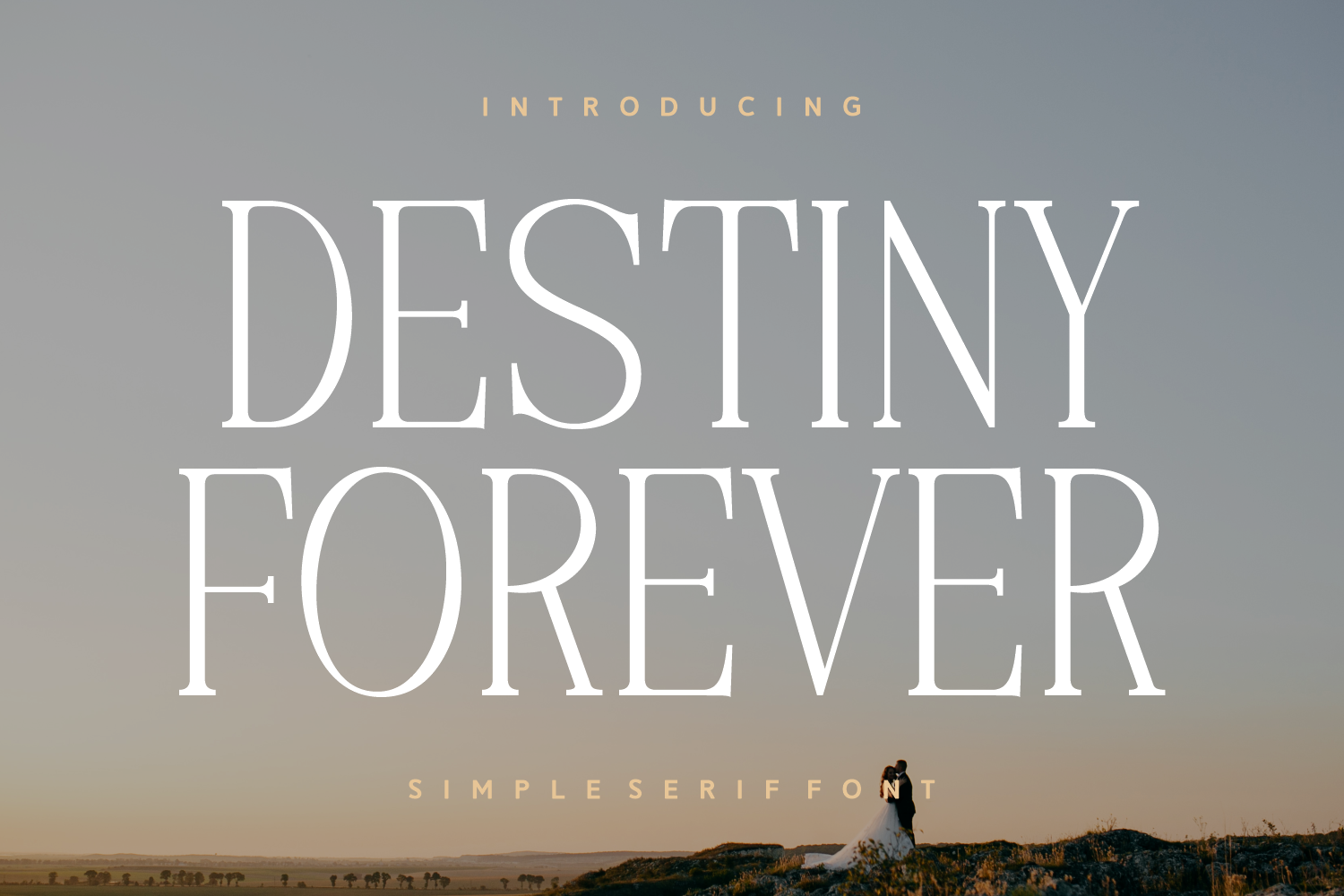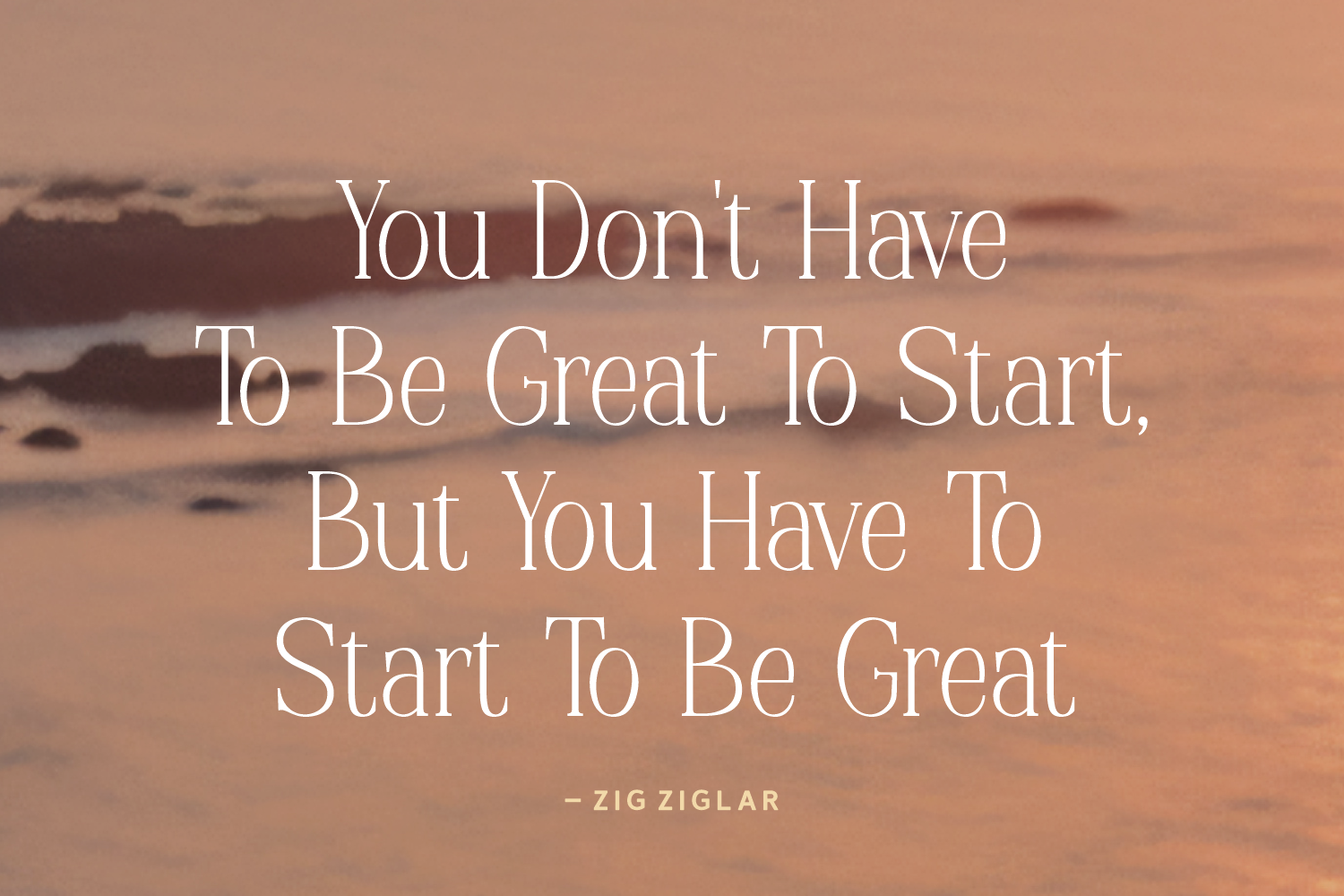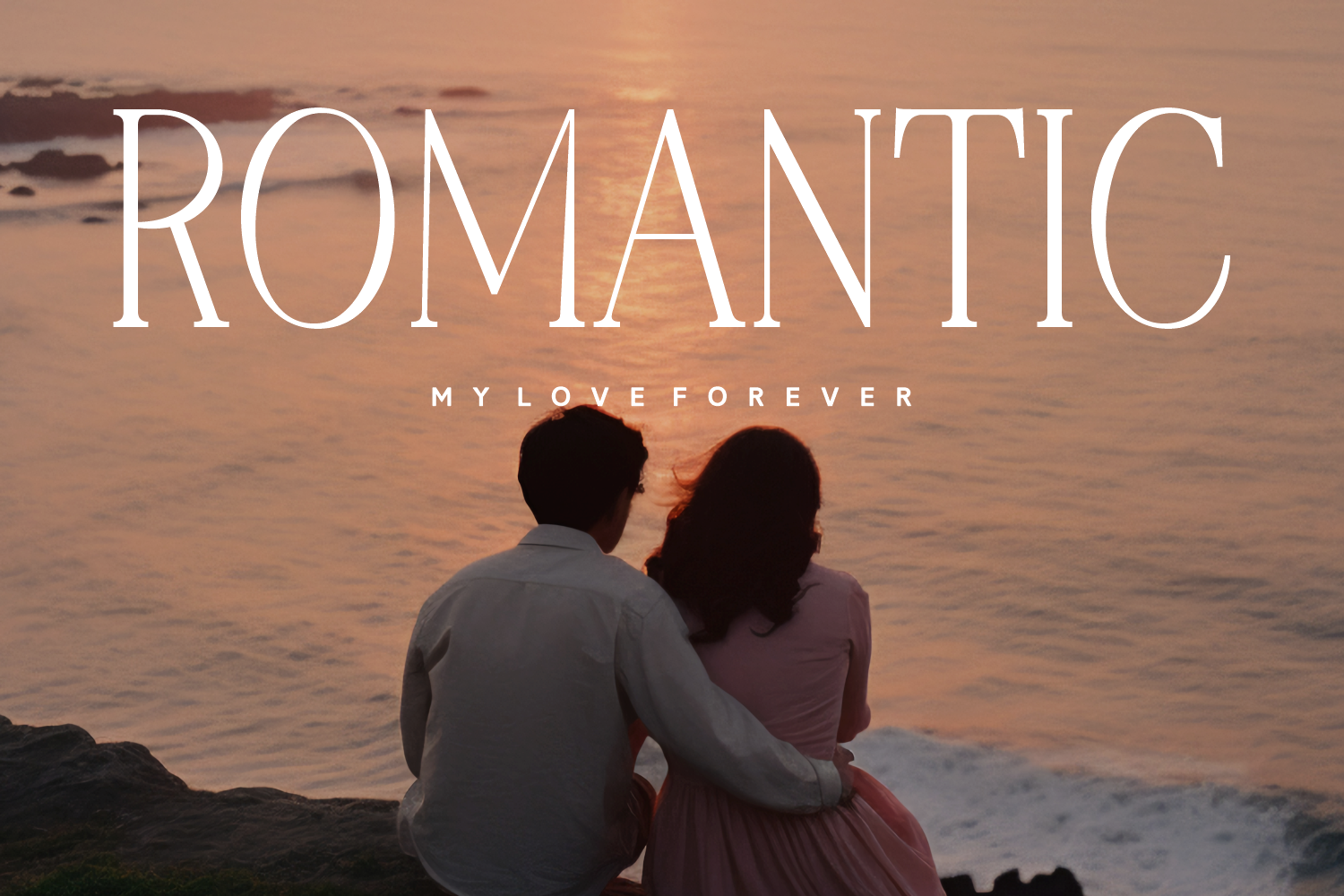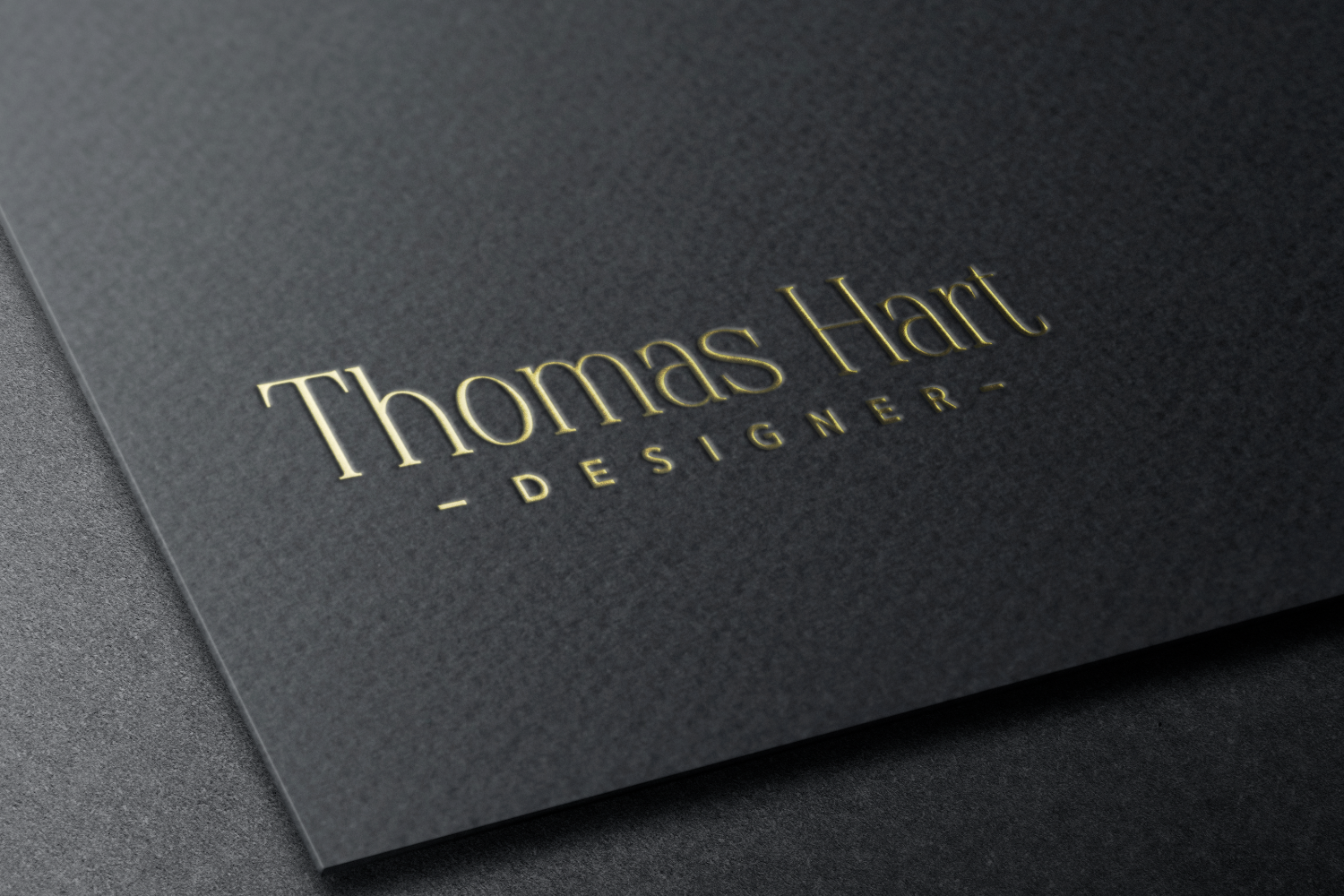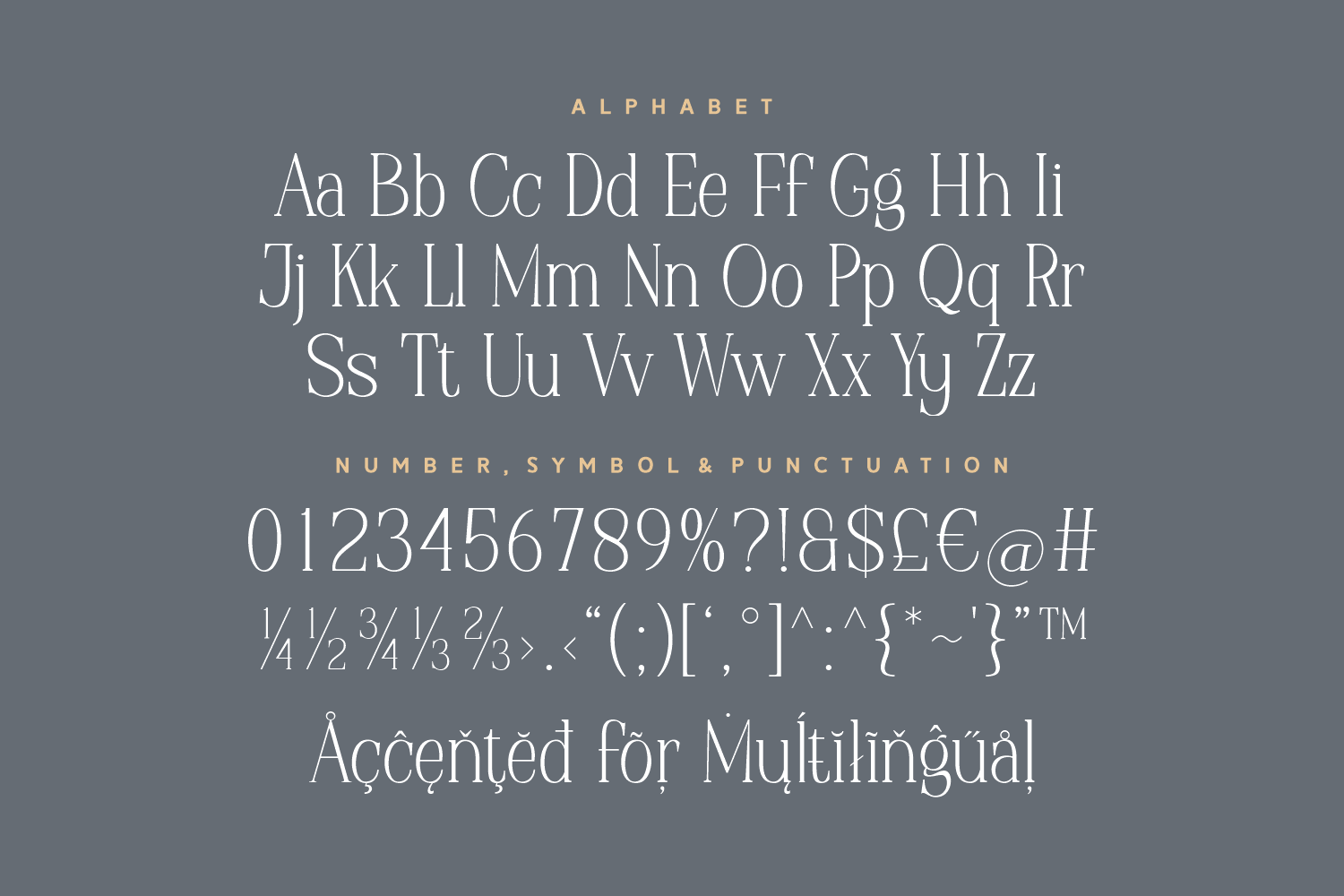
Destiny Forever
Destiny Forever is a tall, elegant serif font that embodies timeless sophistication and romantic charm. With clean lines and subtle personality, Destiny Forever stands out beautifully in both headlines and minimalist layouts. It also includes full multilingual support, making it as versatile as it is stylish.